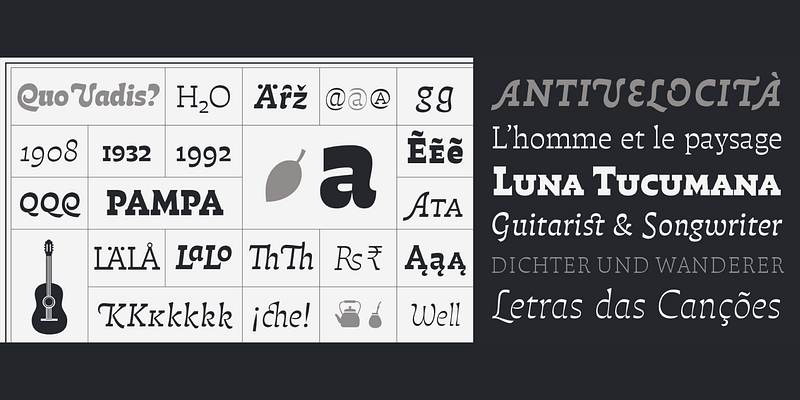
Atahualpa Font Free Download is a modern, elegant serif typeface with strong, clean lines and distinctive, slightly condensed proportions. This font is ideal for a wide variety of applications such as branding, editorial design, advertising, and any project that requires a refined yet contemporary aesthetic.
Atahualpa Font Free Download combines the timeless qualities of traditional serif fonts with a modern, minimalist approach. Its legibility and versatility make it suitable for both headlines and body text, ensuring clarity and sophistication in print or digital formats.
Whether you're designing for high-end brands, professional publications, or creative projects, Atahualpa brings a sense of strength and elegance to your typography.